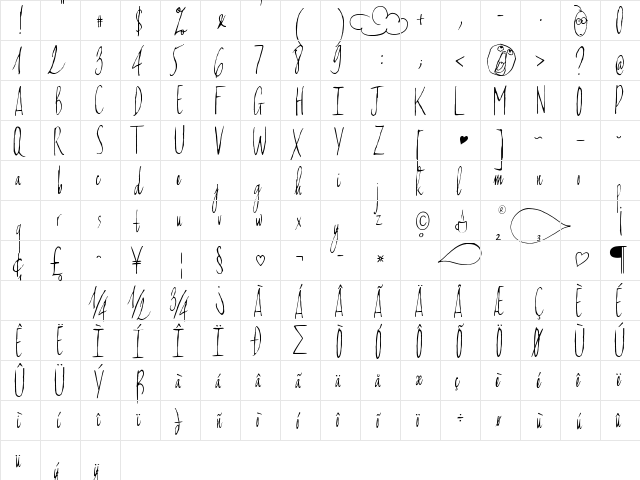
Xoet xoet thu nghiem Regular
| Designer | Le Thi Thu Huong |
Design Context for Xoet xoet thu nghiem Typeface
Xoet xoet thu nghiem is a composed and adaptable typeface that performs quietly and consistently across a wide range of design contexts.